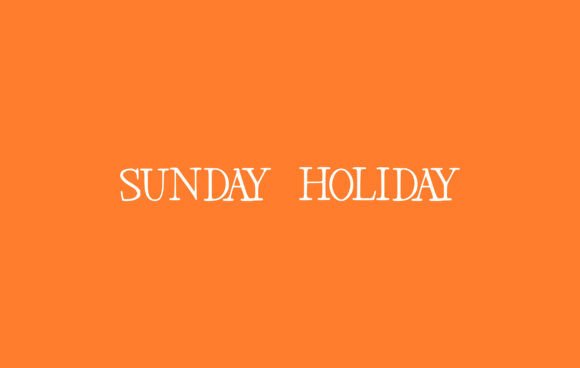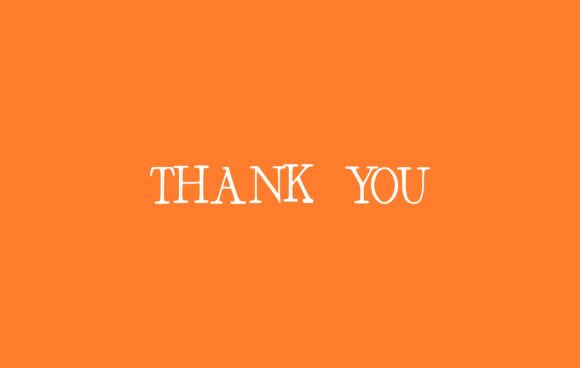
The Forest Quest Font: A Romantic Touch for Your Creative Projects
I’ll never forget the time I was working on a wedding invitation design for a close friend. I had the perfect layout, the ideal color scheme, and a beautiful image to complement the text. However, I was stuck on finding the right font. I wanted something that would capture the essence of the couple’s love story – something romantic, elegant, and authentic. That’s when I stumbled upon the Forest Quest font, and it instantly became my go-to choice.
An Honest Review of Forest Quest Font
The Forest Quest font has been a game-changer for my designs, and I’m excited to share my honest review with you.
- ✨ Authentic handwritten feel with a romantic touch
- ✅ Legible and versatile for both title and body text
- 💕 Perfect for a variety of design projects, from magazine headlines to wedding invitations
- 🎨 Beautifully crafted with attention to detail, making it a true favorite
While the Forest Quest font is amazing, there are a few minor things to keep in mind:
- 🤔 Some characters may require manual kerning for optimal spacing
- ⚠️ Limited availability of stylistic alternates, but the existing ones are beautifully designed
The Designer Inspiration Behind Forest Quest
Although the true story behind Forest Quest’s creation remains a mystery, it’s easy to imagine that the designer was inspired by the whimsical world of nature. Perhaps they spent countless hours exploring the forest, collecting handwritten notes and sketches that would eventually become this beautiful font.
Q: Does Forest Quest support OpenType features?
A: Yes, the Forest Quest font supports OpenType features, including ligatures and stylistic alternates, which can enhance your design’s visual appeal.